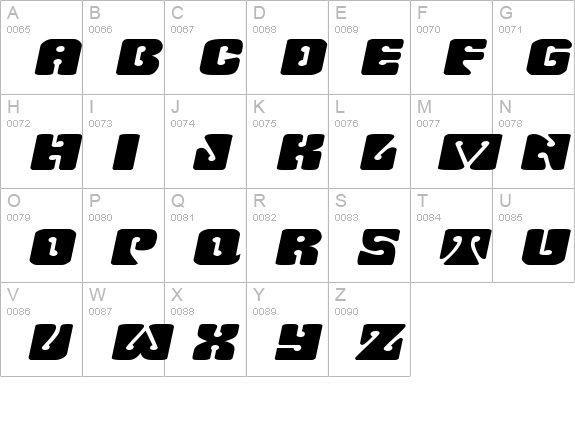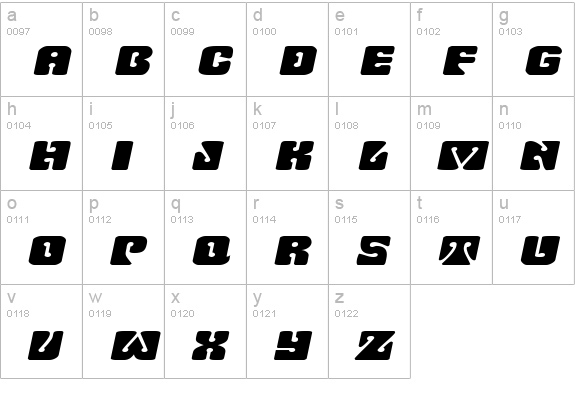
WavyOrnamentalExtended Oblique Font Details
WavyOrnamentalExtended Oblique is a distinctive, italic variant in the WavyOrnamentalExtended typeface family \xE2\x80\x94 well suited to design and typography projects.
WavyOrnamentalExtended Oblique font is a stunning typeface that effortlessly combines elegance and playfulness. With its gracefully curved letterforms and intricate ornamental details, this font adds a touch of whimsy and sophistication to any design project. The unique oblique slant adds a dynamic element, creating a sense of movement and energy. Featuring an extended character set, WavyOrnamentalExtended Oblique font offers versatility and flexibility for various design purposes. Whether you're working on invitations, logos, packaging, or headlines, this font will make your text stand out and capture attention. Its intricate details and delicate curves make it perfect for projects that require a touch of creativity and finesse. One of the best things about WavyOrnamentalExtended Oblique font is that it is freely available to download at FontsMarket.com. This means that you can easily access and use this gorgeous typeface without any cost. Whether you're a professional designer or a hobbyist, this font offers a high-quality option that won't break the bank. So, if you're looking for a font that combines elegance, playfulness, and intricate details, WavyOrnamentalExtended Oblique font is the perfect choice. Download it for free at FontsMarket.com and elevate your designs with its unique and captivating style.